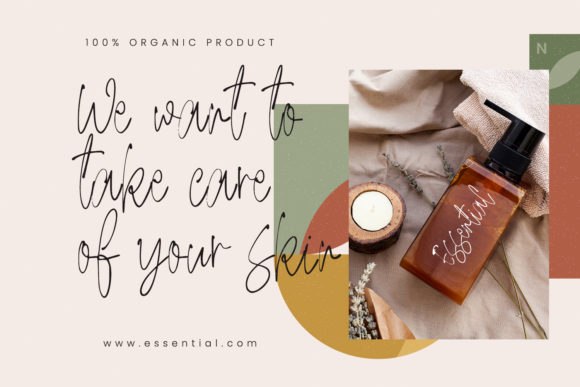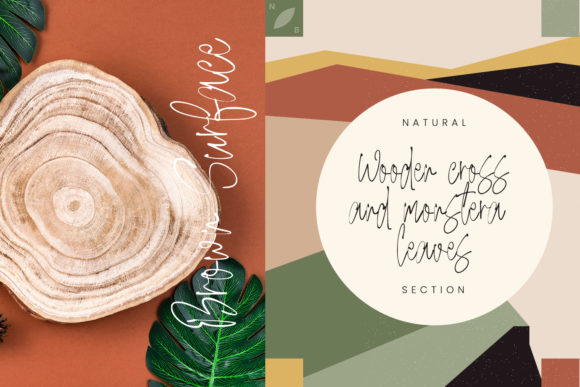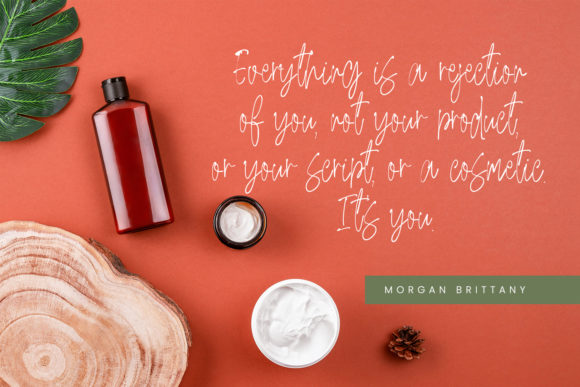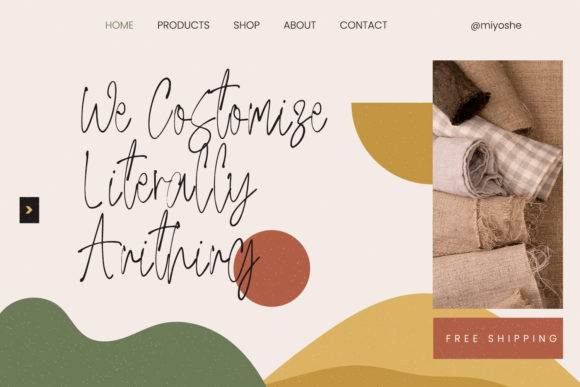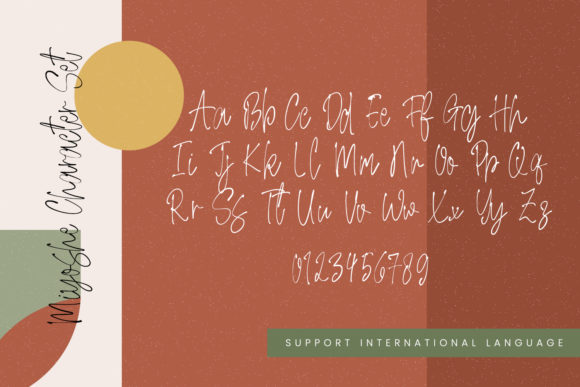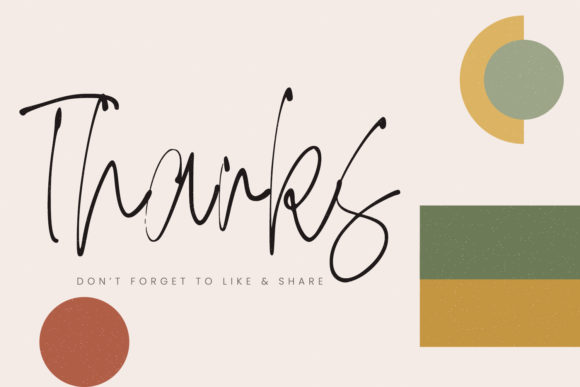
Introduction to Miyoshe Font
Have you ever been stuck on a design project, staring at a blank canvas, and desperately searching for that perfect font to bring your vision to life? I’m sure we’ve all been there. For me, it was a recent design project for a client who wanted a clean and elegant look for their new brand. After hours of browsing through various design resources, I stumbled upon the stunning Miyoshe Font. Its delicate script style and smooth vibe instantly caught my attention, and I knew I had to share it with fellow designers.
Miyoshe Font is a game-changer for any creative project, offering a high-quality design solution that’s both stylish and versatile. With its transparent background and clean lines, it’s the perfect addition to any design. And the best part? It’s available for free download, making it an invaluable resource for designers of all levels.
Key Features of Miyoshe Font
- High-quality design resource suitable for various creative projects, including digital art and print media.
- Available for free download in a transparent background format, allowing for seamless integration into your design.
- Comes in a single weight, making it easy to use in a variety of design contexts.
- Features a unique and modern aesthetic, perfect for adding a touch of sophistication to your design.
- Supports resolutions up to 300 DPI, ensuring crisp and clear text at high magnifications.
Honest Review: Miyoshe Font
I recently stumbled upon the Miyoshe Font, and I must say it’s been a pleasant discovery. As a designer, I’m always on the lookout for high-quality design resources to enhance my creative projects.
- The Miyoshe Font boasts a unique, elegant design that adds a touch of sophistication to any project.
- Its transparent background makes it easy to layer over images or other design elements without any hassle.
- The font family includes a variety of weights and styles, giving designers plenty of options to choose from.
- The Miyoshe Font may not be suitable for very large-scale projects, as it can be a bit cumbersome to work with.
- The font’s elegance can sometimes come across as too formal or restrictive for more playful designs.
Overall, I’m quite impressed with the Miyoshe Font. It’s a solid addition to any designer’s toolkit, and I’ve already used it in a few of my recent projects. If you’re looking for a high-quality, free font to enhance your creative work, I’d definitely recommend giving the Miyoshe Font a try.
Tips for Getting the Most Out of Miyoshe Font
For the best results, use Miyoshe Font on a transparent background to achieve a high-quality design. You can also experiment with different font sizes and colors to add creativity to your project. Additionally, use the font in conjunction with other design elements to create a cohesive and visually appealing design.
Miyoshe Font is a versatile design resource that can be used in a variety of creative projects, such as logo design, branding, and typography. It is also a great option for designers who need a high-quality font with a transparent background for free download.